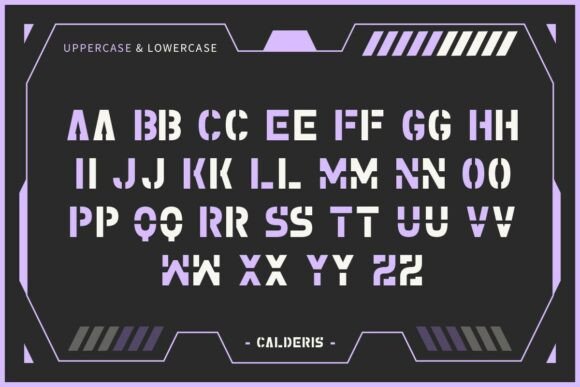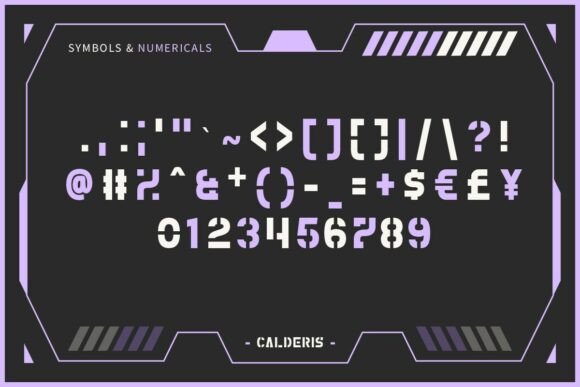
Calderis Font: A Futuristic Stencil Display Font for Modern Creatives
In the world of typography, font styles play a crucial role in conveying the tone and aesthetic of a brand, product, or artwork. For designers and crafters looking for a bold and futuristic font, Calderis is an excellent choice. This cutting-edge display typeface is specifically designed for tech-forward creatives, gaming titles, sci-fi branding, and digital media.
The Design of Calderis
Calderis boasts a bold stencil design with geometric cuts that give it a cybernetic edge. This industrial feel is both modern and militaristic, making it perfect for projects that require a strong and high-impact style. The font’s uniform, all-caps look includes both uppercase and lowercase styles, making it highly adaptable for branding or standout display uses.
Key Features of Calderis
- Bold Stencil Design: Calderis features a bold stencil design that gives it a unique and futuristic look.
- Geometric Cuts: The font’s geometric cuts add a cybernetic edge, making it perfect for tech-forward projects.
- Industrial Feel: Calderis has a strong industrial feel that is both modern and militaristic.
- High-Impact Style: The font’s high-impact style makes it perfect for posters, UI design, esports logos, movie titles, and more.
- Uppercase and Lowercase Styles: Calderis includes both uppercase and lowercase styles, making it highly adaptable for branding or standout display uses.
Use Cases for Calderis
Calderis is a versatile font that can be used in a variety of projects, including:
- Posters: Calderis is perfect for creating eye-catching posters for movies, games, or events.
- UI Design: The font’s bold and futuristic design makes it ideal for UI design elements, such as buttons, icons, and navigation menus.
- Esports Logos: Calderis is a great choice for esports logos, team names, and branding.
- Movie Titles: The font’s high-impact style makes it perfect for movie titles, trailers, and promotional materials.
- Sci-Fi Branding: Calderis is designed for sci-fi branding, making it a great choice for projects that require a futuristic and otherworldly feel.
Why Choose Calderis?
Calderis is a unique and versatile font that offers a range of benefits for designers and crafters. Here are just a few reasons why you should choose Calderis for your next project:
- Maximum Visual Impact: Calderis delivers maximum visual impact, making it perfect for projects that require a bold and attention-grabbing style.
- Futuristic Design: The font’s futuristic design makes it perfect for projects that require a modern and cutting-edge aesthetic.
- Highly Adaptable: Calderis is highly adaptable, making it suitable for a wide range of projects and applications.
In conclusion, Calderis is a futuristic stencil display font that is perfect for modern creatives, designers, and crafters. Its bold and industrial design makes it ideal for projects that require a strong and high-impact style. With its versatility, adaptability, and maximum visual impact, Calderis is a great choice for a wide range of projects, from posters and UI design to esports logos and sci-fi branding.
Whether you’re designing for a dystopian future or a high-tech present, Calderis delivers. So why not give Calderis a try and experience the power of a futuristic stencil display font for yourself?